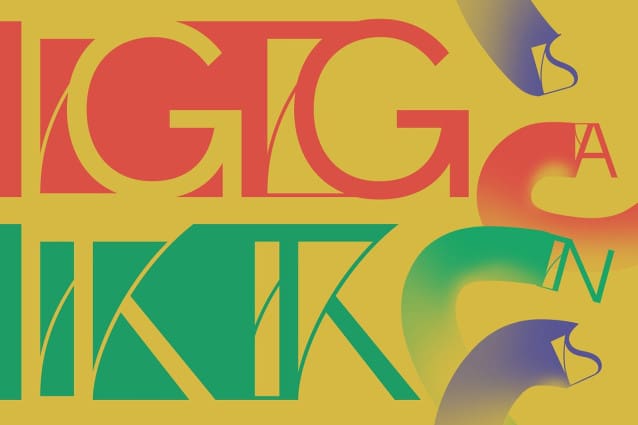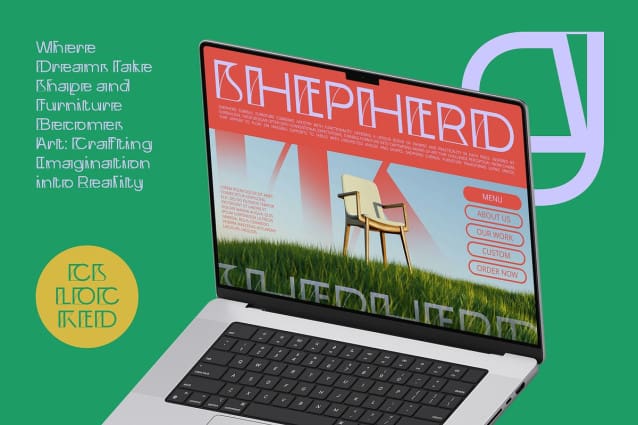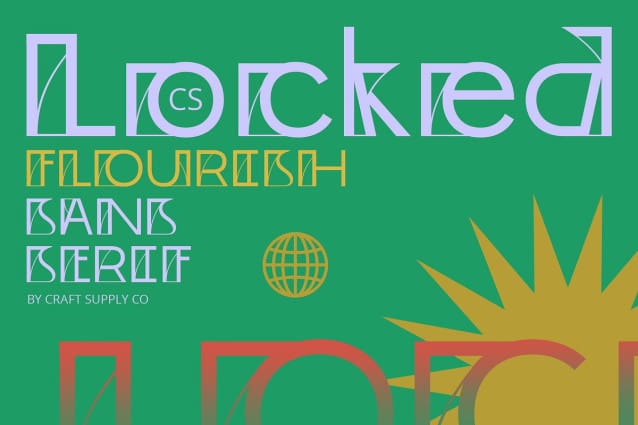
CS Locked Font
CS Locked Font is a sophisticated display font that seamlessly blends intricate flourish with Art Deco style, creating an elegant and luxurious impression. This font is characterized by decorative elements, gracefully curved lines, and possibly geometric patterns inspired by the iconic Art Deco era.
CS Locked is perfect for designs aiming to convey elegance, luxury, and a distinctive classical era aesthetic. Its additional embellishments at letter ends and refined details make it ideal for branding projects seeking an exclusive image, editorial layouts highlighting a unique classical aesthetic, and visual designs such as posters or product packaging requiring a luxurious appearance.
With its unique fusion of flourish and Art Deco elements, CS Locked offers a captivating visual character that enhances any design project. It adds a touch of sophistication and beauty, making it a standout choice for projects that prioritize aesthetic appeal and timeless elegance.
Whether used for branding, editorial layouts, or visual projects, CS Locked brings a special and luxurious appearance to your designs. Its blend of flourish and Art Deco style ensures your designs stand out with a unique and memorable visual presence.